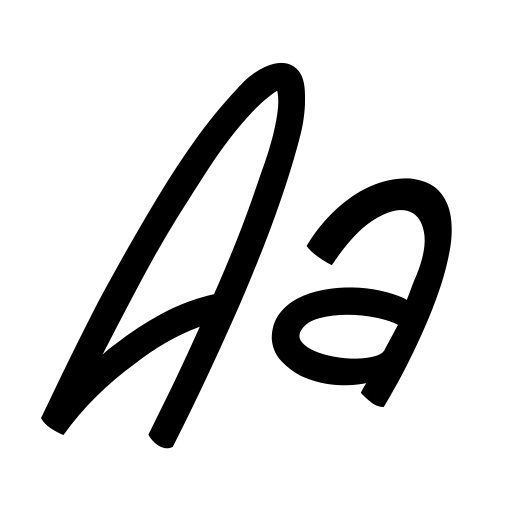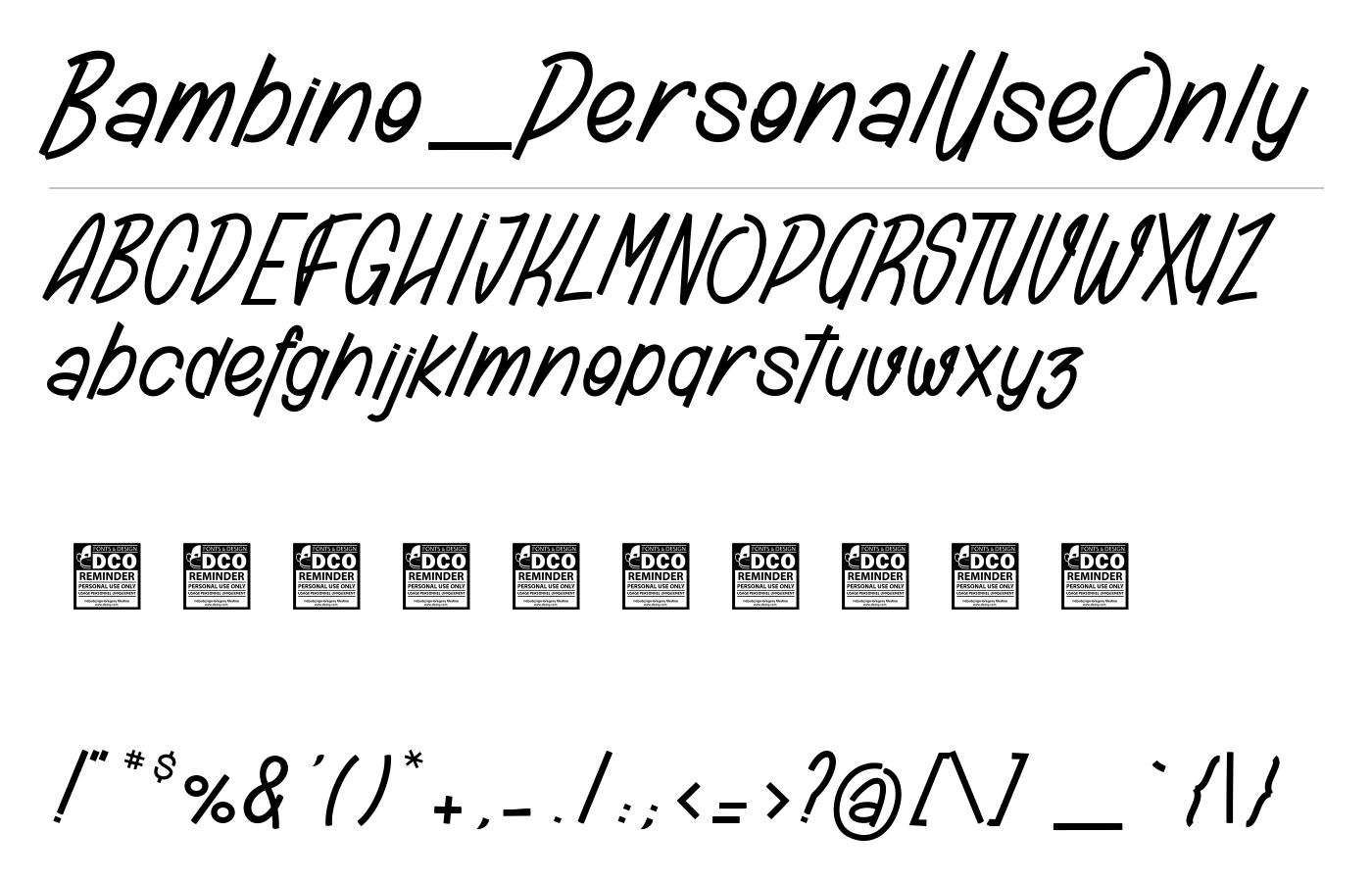
Bambino_PersonalUseOnly is a lively, italic sans serif font with a casual, handwritten feel. Its slender, slightly condensed letterforms and playful curves make it perfect for informal, creative projects that need a personal touch, such as invitations, branding for youthful or artistic brands, and eye-catching headlines. This font works best where a friendly, approachable style is desired without losing readability.
Bambino_PersonalUseOnly Font
About Bambino_PersonalUseOnly Font